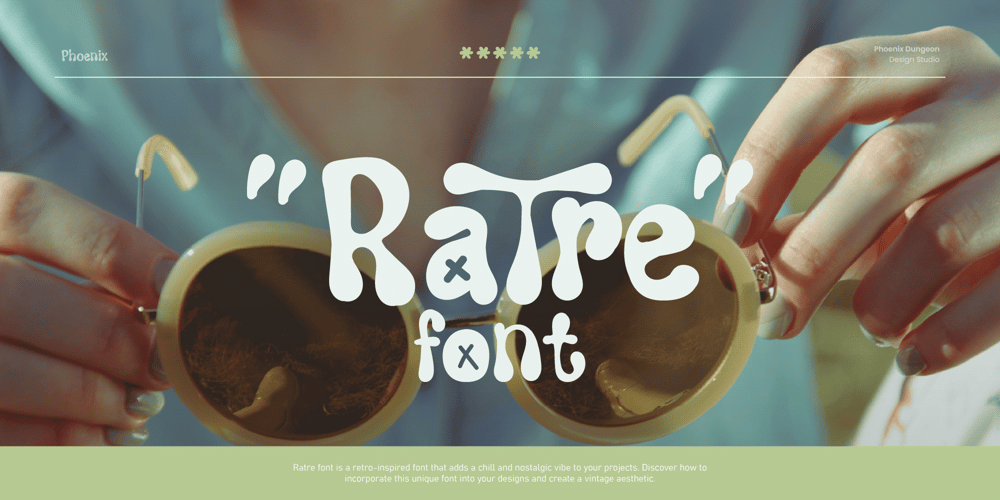
Ratre Font Family was designed by Alif Naufal Muzakki and published by Phoenix Group. Ratre contains 1 styles and family package options. Ratre font is a retro-inspired font that adds a chill and nostalgic vibe to your projects. Discover how to incorporate this unique font into your designs and create a vintage aesthetic.